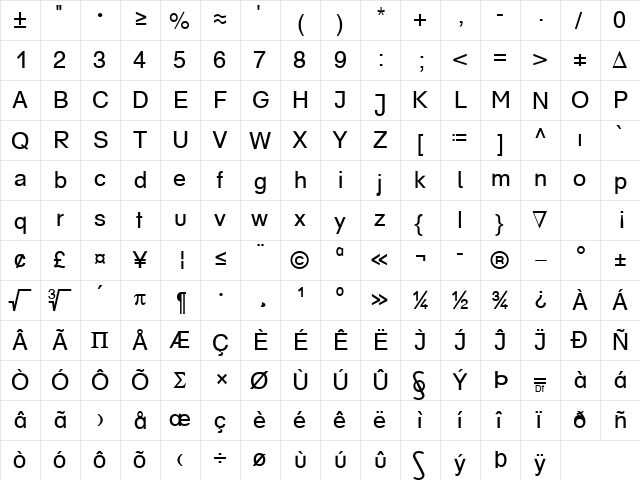
MathFunction Becker Normal
Design Context for MathFunction Becker Typeface
MathFunction Becker trades formality for fun, with bouncy, characterful letterforms that bring warmth and energy to any project.
Well-suited to food and beverage brands with personality, educational materials, and fun-forward identities.
Font Pairing: Pairs well with a rounded or humanist sans for body copy, maintaining the friendly tone without relying on MathFunction Becker to carry extended reading.
Pro Tip: Use MathFunction Becker at larger display sizes where its expressive character can land. Pair with a clean, simple sans for body copy to maintain readability.